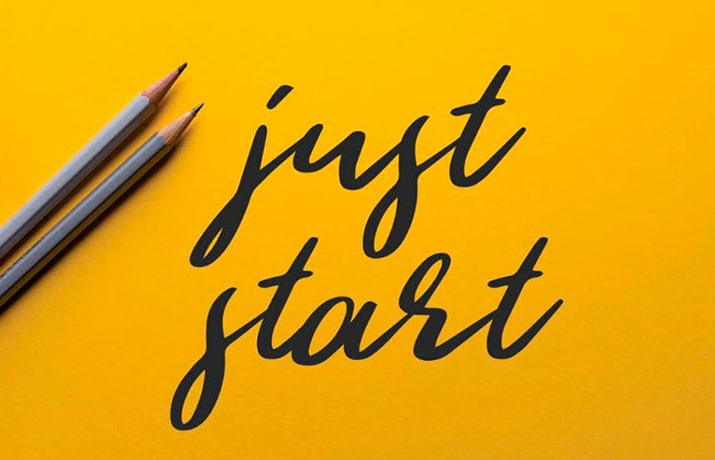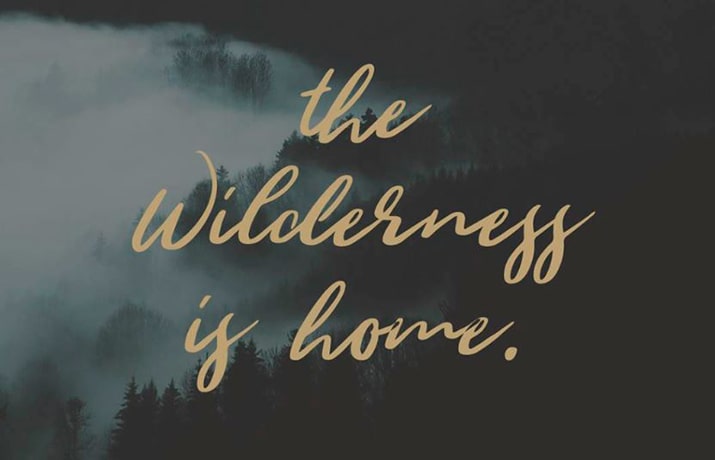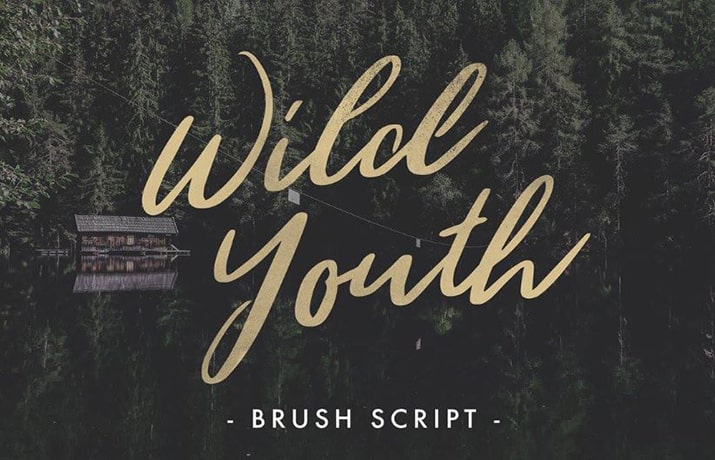
Wild Youth Font is another beautiful hand-drawn brush typeface that is crafted with love, this typeface features casually written letters with rough edges.
It was created by Jeremy Vessey that is a Graphic Designer who specializes in building logos, lettering, custom type & illustrations.
After releasing this font family, it became an incredible success in no time. True to its luxurious look and feel, this is one of the best typefaces you’ve ever seen.
All letters and characters are manually drawn by the designer with a brush pen. This beautiful font family is a very clean, attractive, and unique functional typeface for this long tradition.
Style: | Brush, Script, Typeface |
Font Designer: | Jeremy Vessey |
You can use this font to create logos, poster crafting, banners, business cards, product designs, labels, photography, watermarks, wedding card designs, movie titles, brochures, labels, and many other related ways. And it can be used for a variety of projects on print or screen.